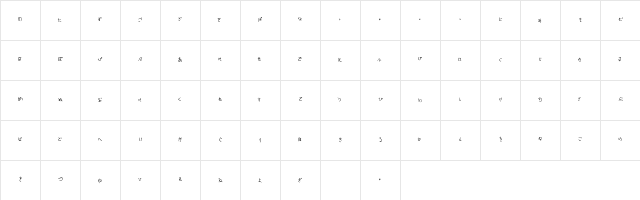
Sakura Irohanihoheto Regular
Complete Sakura Irohanihoheto Regular glyph index. Displaying only characters natively supported by Sakura Irohanihoheto Regular font.
Design Context for Sakura Irohanihoheto
Sakura Irohanihoheto is a composed and adaptable typeface that performs quietly and consistently across a wide range of design contexts.